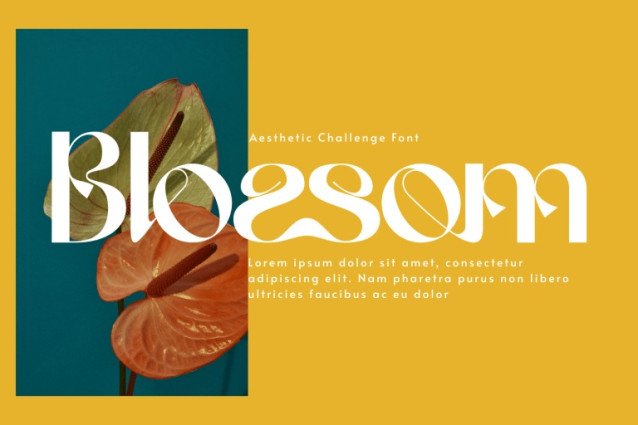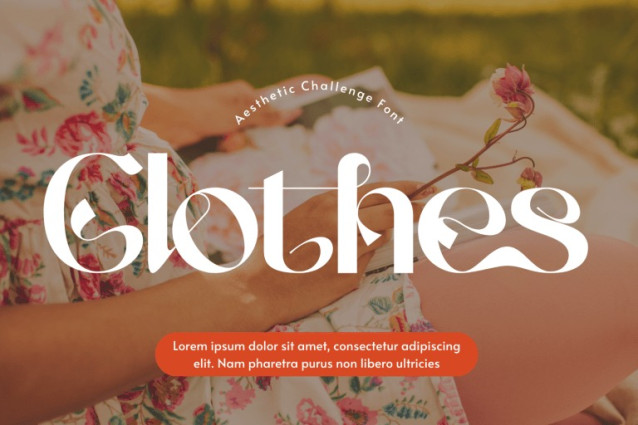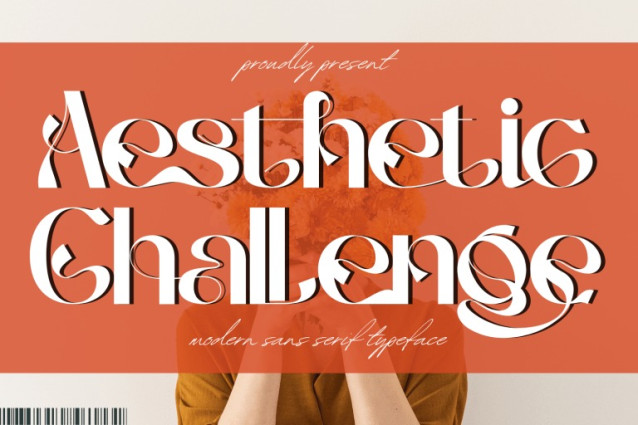
Aesthetic Challenge Font
Aesthetic Challenge – Fashion Font is a modern high-contrast decorative sans-serif display typeface designed for contemporary branding and editorial design. Featuring clean sans-serif foundations enhanced with refined inner cut details and elegant stroke transitions, this typeface delivers a bold yet sophisticated visual identity. The balanced proportions and distinctive character shapes create a luxurious rhythm across headlines and logos. Aesthetic Challenge is perfect for fashion campaigns, beauty branding, magazine covers, premium packaging, and modern lifestyle projects.
🔤Features:
Uppercase & Lowercase Letters
Around 100 Special Ligatures & Alternates
Accented Characters for multilingual support
🔤About 100 ligatures combined with Stylistic Alternates Font: